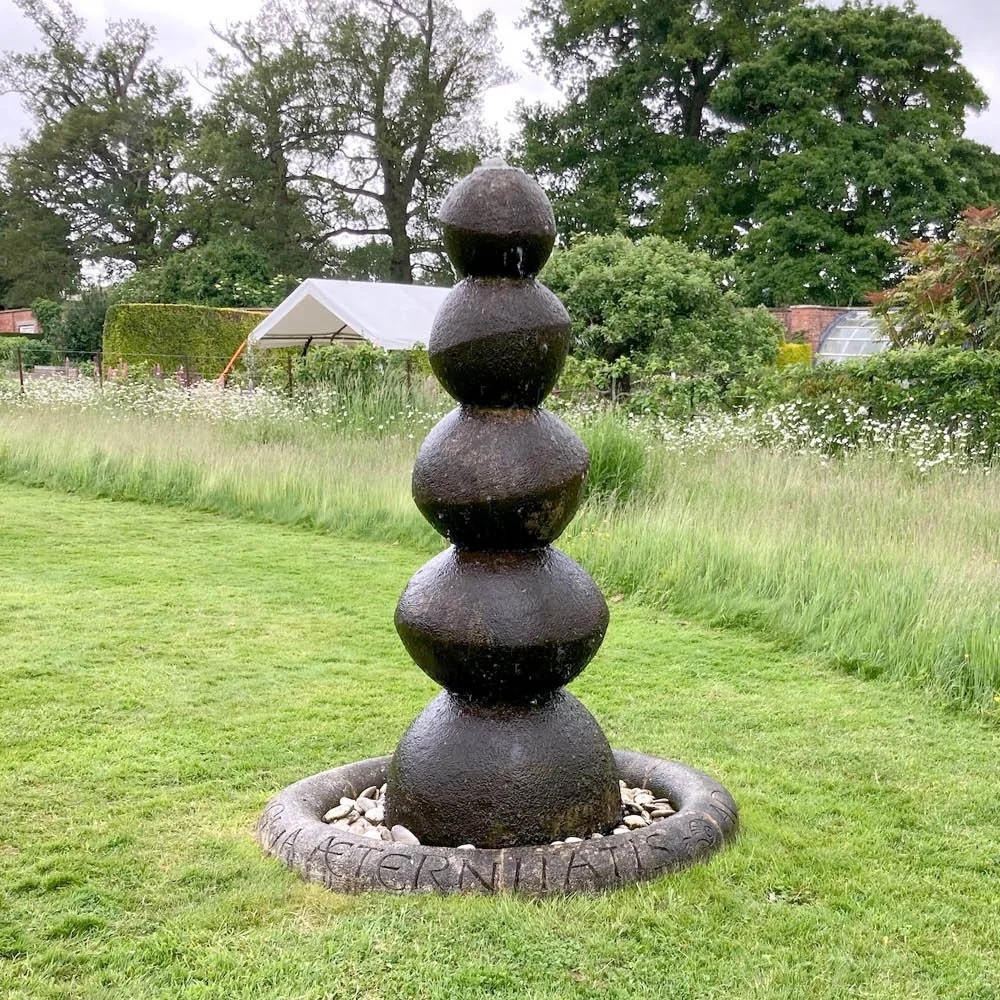
Eccentric Circles fountain by Geoffrey Aldred
Ancaster stone
The inscription ‘Ave aqua aeternitatis. Aqua salus aeterna’ means ‘Hail, water of eternity. Water, the eternal preserver’. The tiered fountain, inspired by Max Ernst’s fountain at Amboise, Loire, combines symmetry and asymmetry.
“I call it Eccentric Circles as, despite being classical in structure, it appears random and off-centre – a bit crazy. The lettering too is classical yet informal in style. This combination of the formal and offbeat reflects the life and work of Edward James, poet, gardener and patron of surrealism, who was deeply interested in memorial art.”